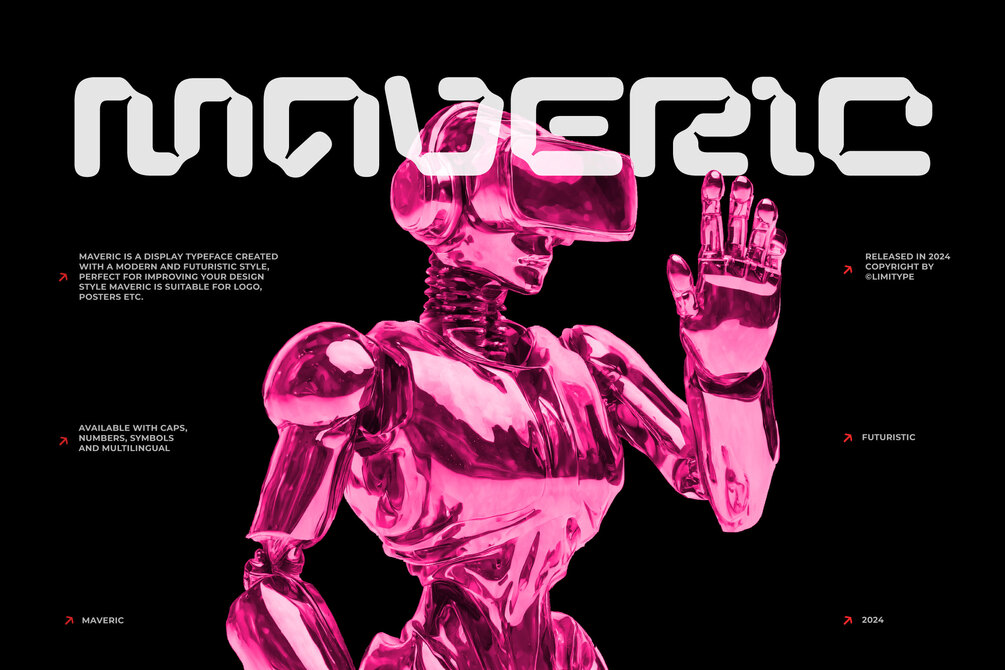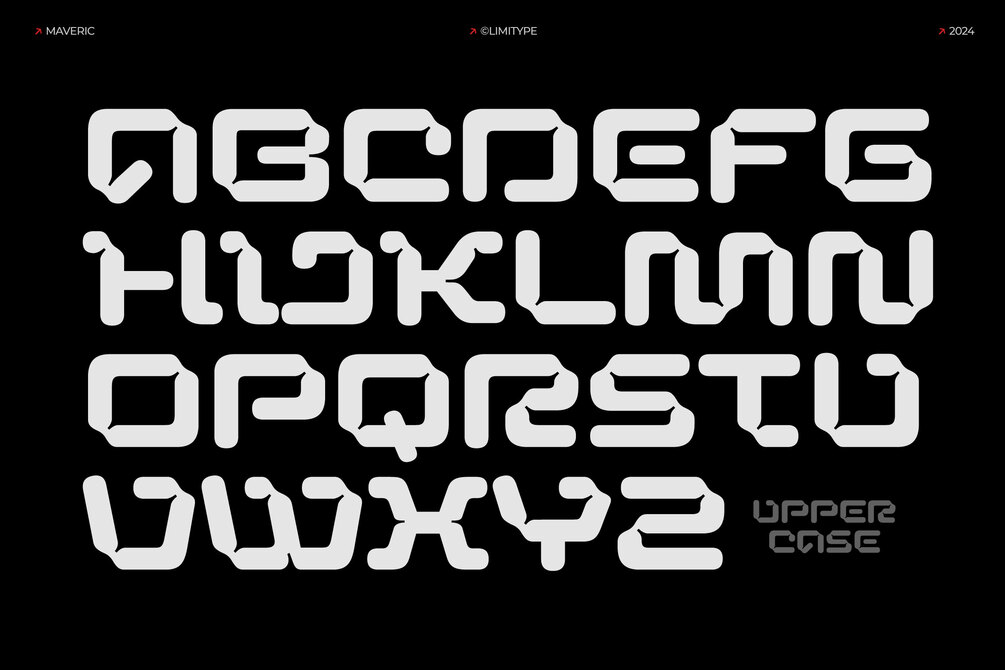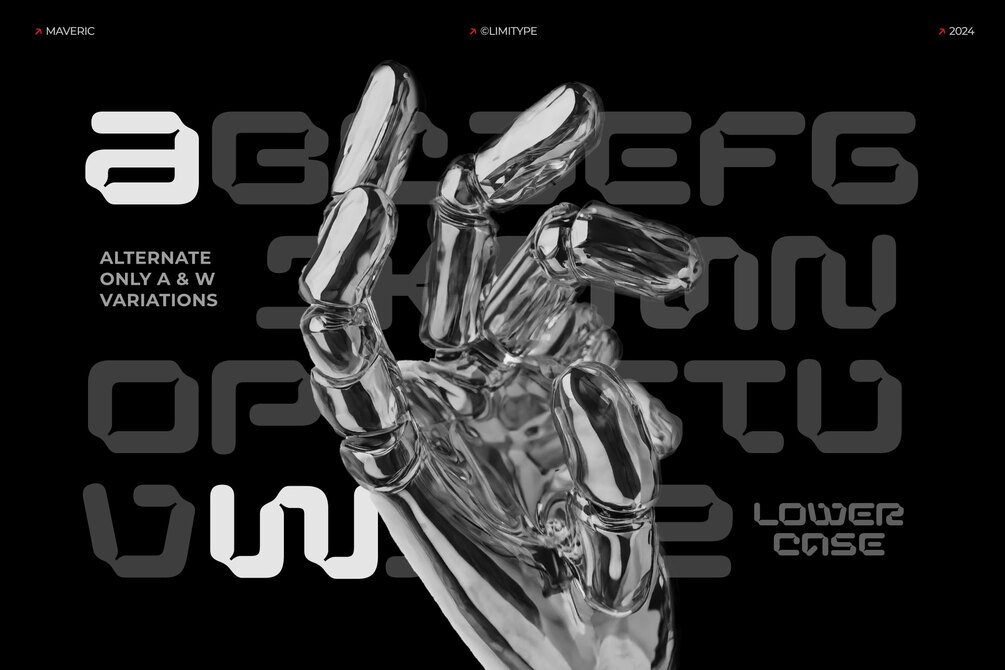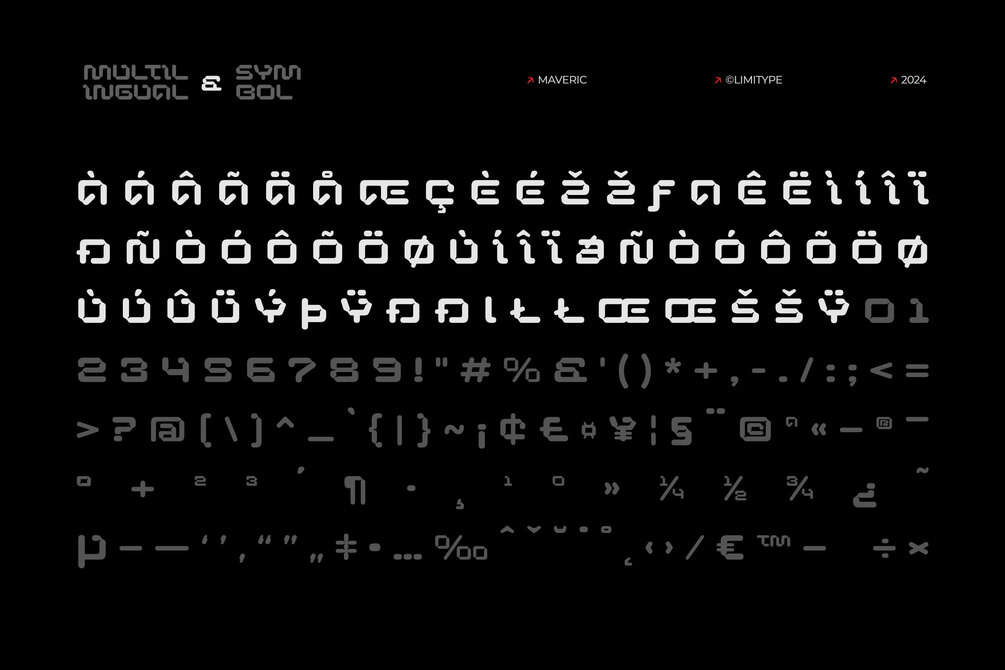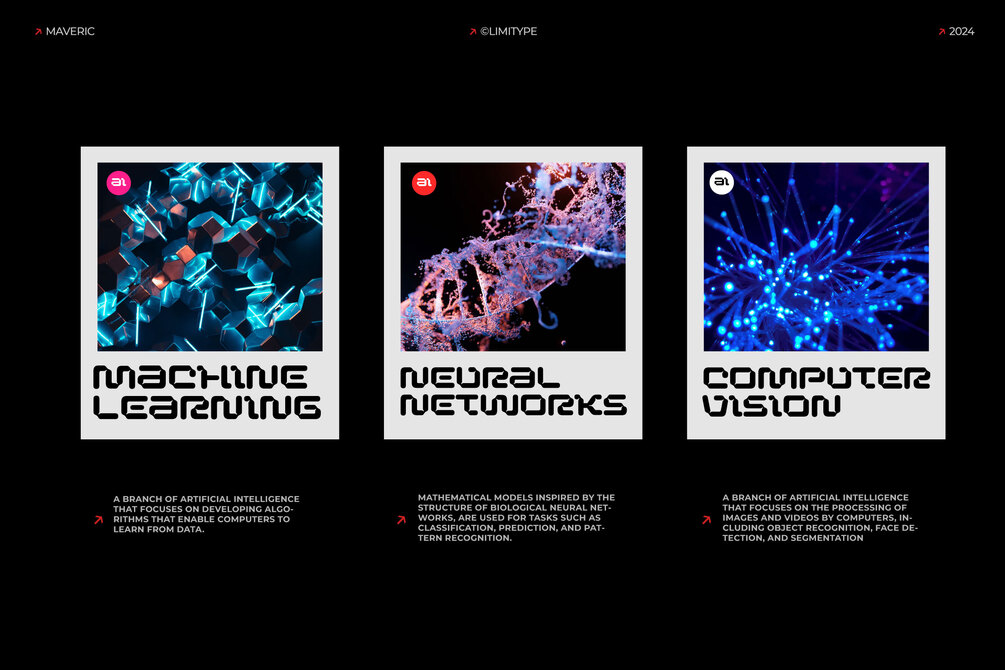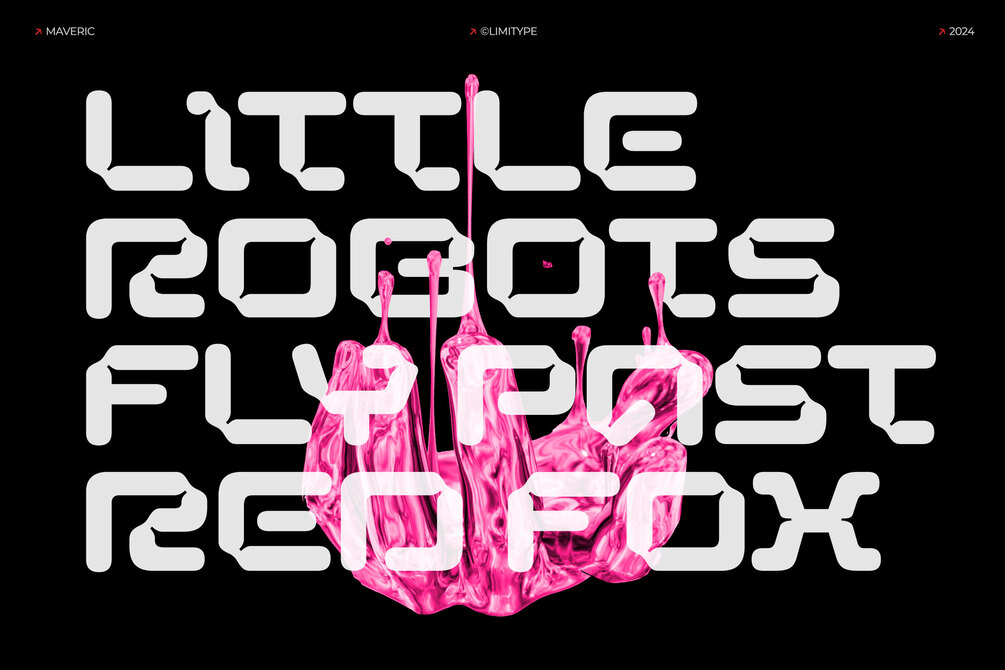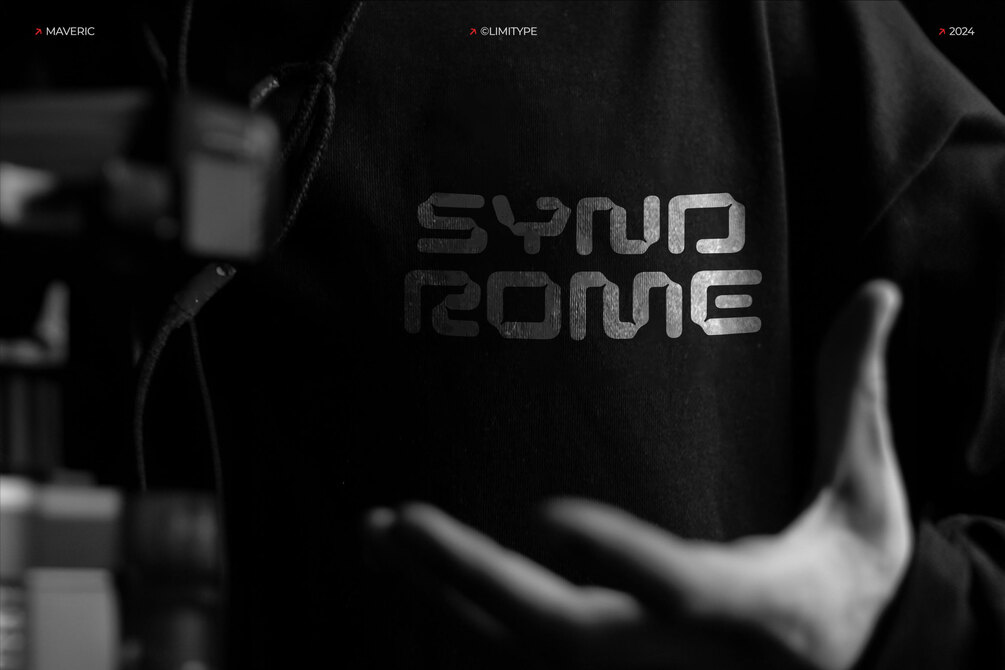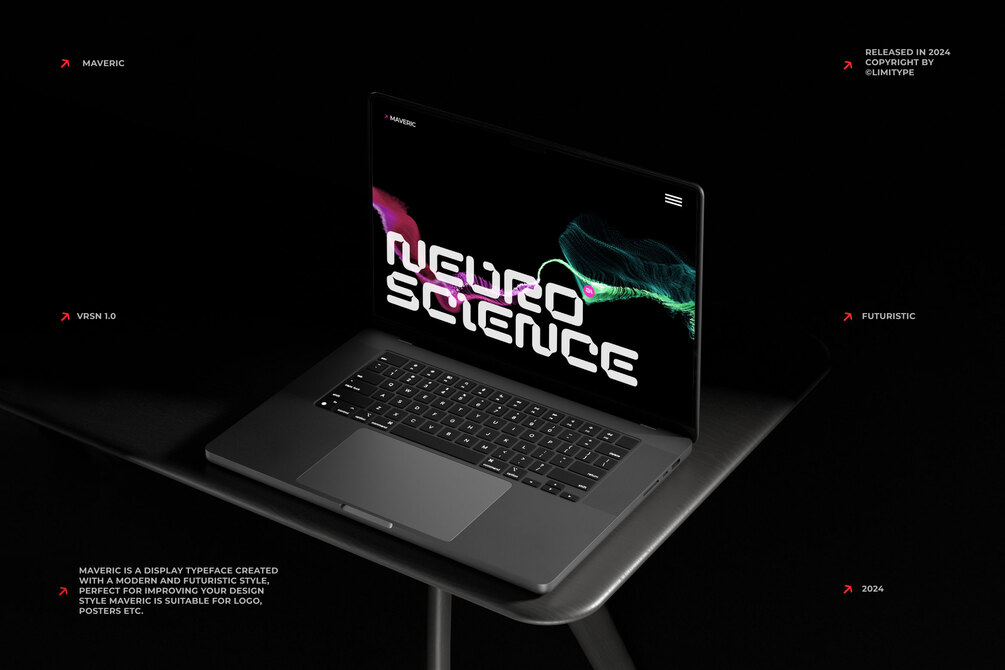
Maveric - Futuristic Font
Transform your designs into a journey through time with Maveric Font! 🚀 Explore the futuristic realm where modern meets robotic sophistication. Elevate your projects with the perfect blend of innovation and style. Maveric Font: Where Typography Embraces Tomorrow,featuring with inktrap and dynamic shapes
Maveric is equipped with:
• All caps font
• Number
• Symbols
• Multilingual